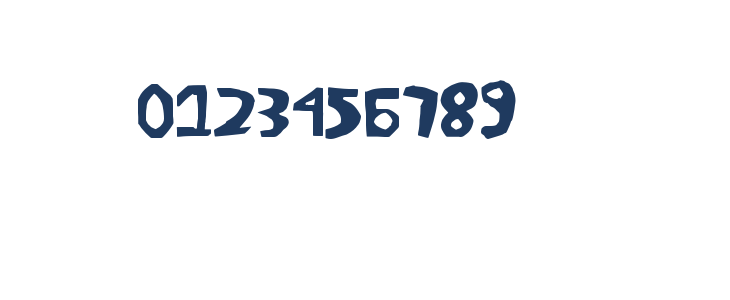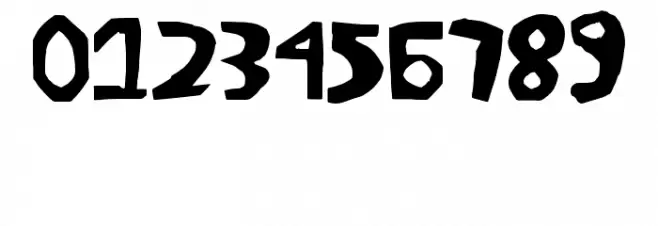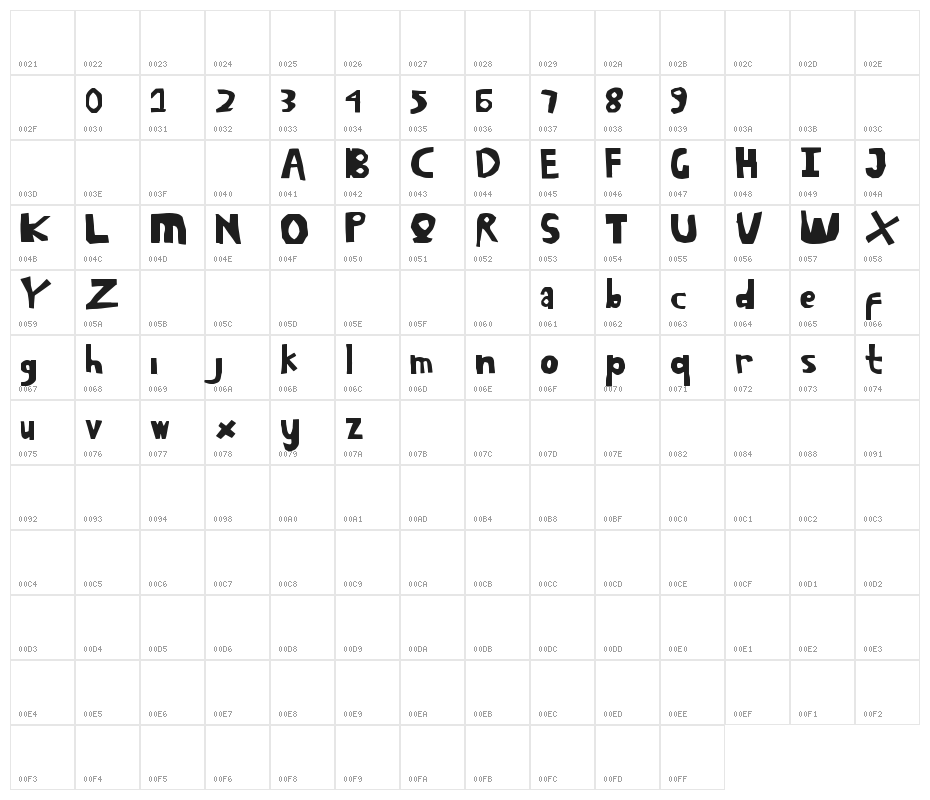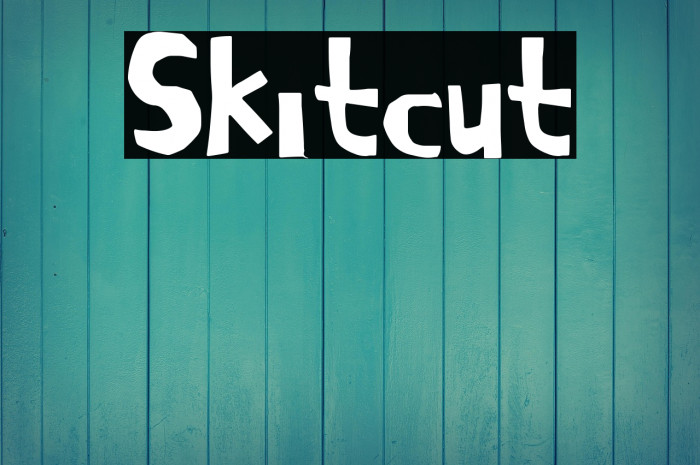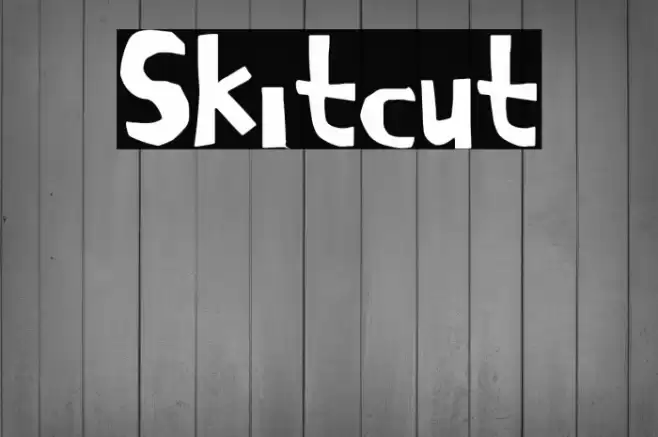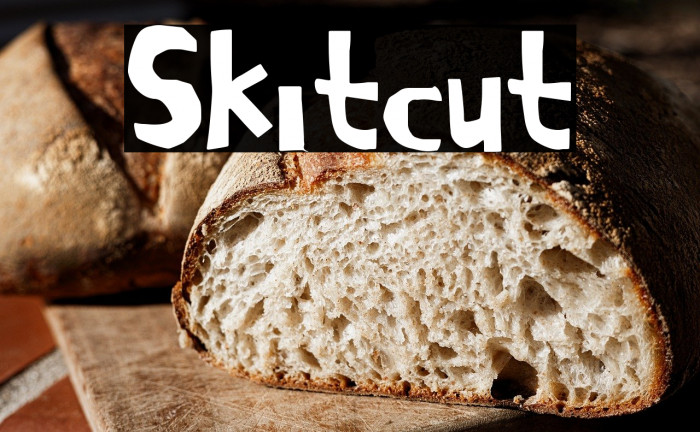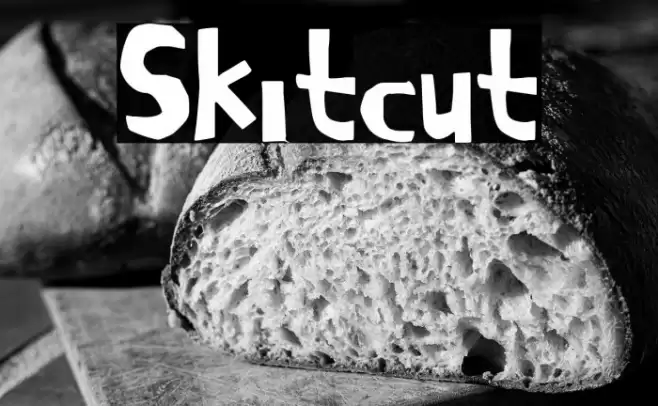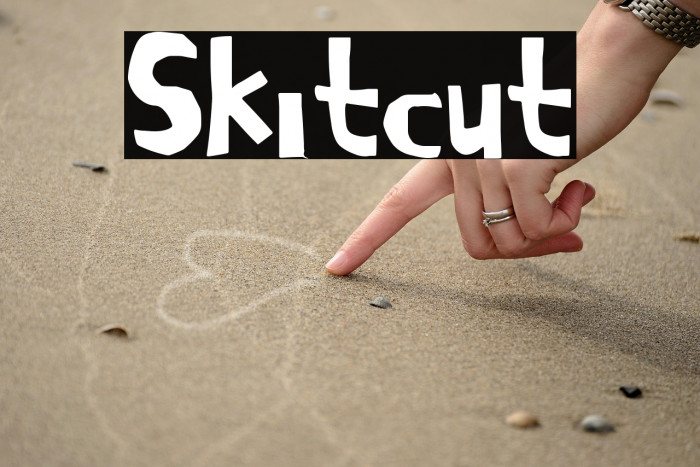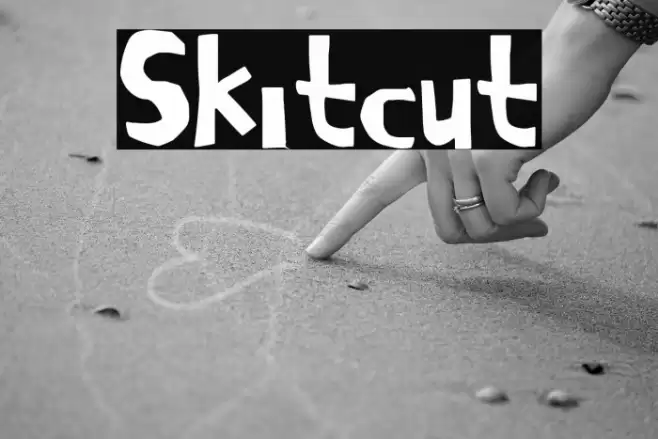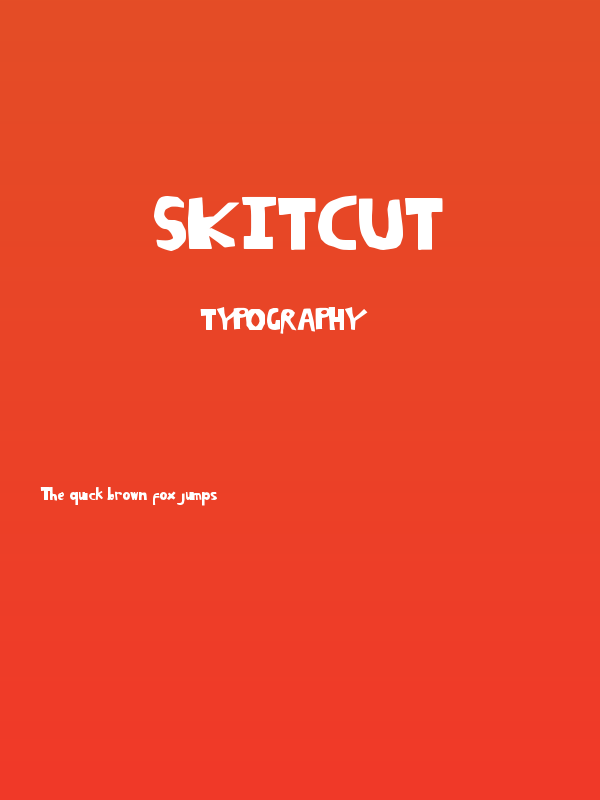
Skitcut Font
Skitcut Description
This font features a playful and irregular design, characterized by its bold and uneven strokes. The letters have a hand-cut appearance, giving them a unique and artistic flair. The uppercase and lowercase letters maintain a consistent style, with varying widths and heights that add to the whimsical nature of the font. The numbers follow the same quirky design, ensuring a cohesive look across all characters. This font's distinctive style makes it stand out, perfect for projects that require a creative and informal touch.
Overall StyleArtistic, Whimsical
Use CaseHeadlines, Posters, Creative Branding
Proposed ProjectsIdeal for children's books, creative posters, and artistic branding projects.